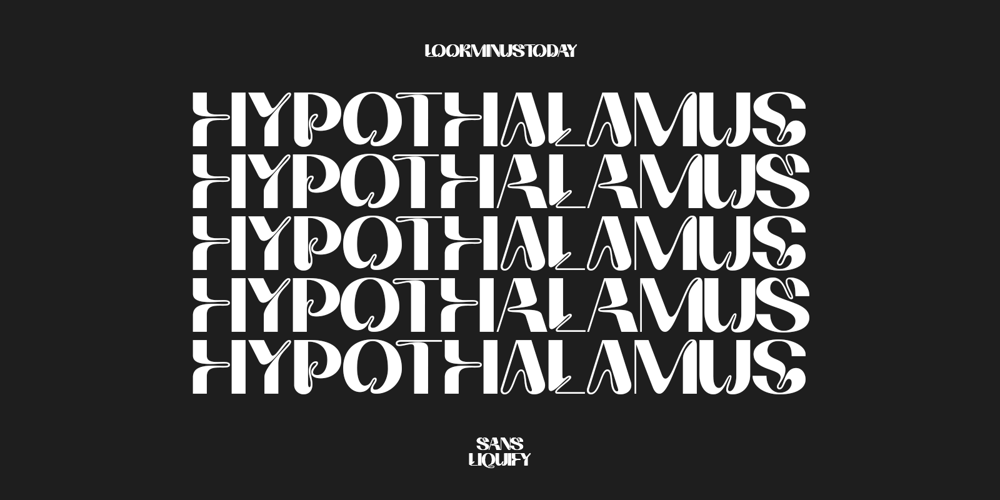
HYPOTHALAMUS Font Family was designed by Arif Rijal and published by Look Minus Today. HYPOTHALAMUS contains 1 styles and family package options. Introducing Hypothalamus – Sans Liquify Serif by Look Minus Today.Hypothalamus is inspired by the flow of water that flows so beautifully. This versatile font is perfect for all design needs, from print materials to digital media.With the right balance of thickness and spacing to get the beauty of how nature can create such beautiful shapes.Its elegant lines and smooth curves make it a great choice for a variety of design applications, including branding, advertising, packaging, and editorial design.Our font is a versatile and stylish choice for any design project.————————————————Features:- Uppercase- Lowercase- Alternates & Ligatures- Numerals & Punctuation- Multilingual & Symbol- HOW TO ACCESS ALTERNATE CHARACTERSOpen glyphs panel:In Adobe Illustrator go to Window – Type – glyphsIn Adobe Photoshop go to Window – glyphsFor any further questions or assistance, please feel free to contact us.Thank you and have a nice day !